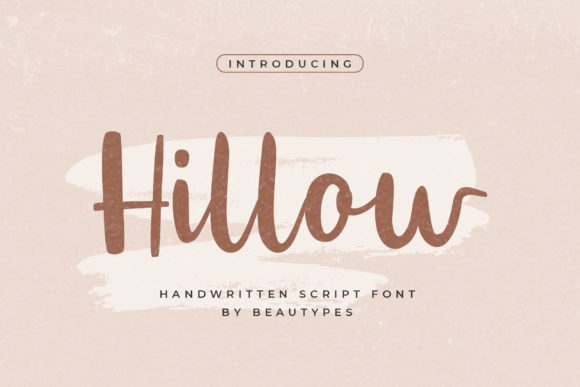
Hillow Script: A Guide to Elegant Typography
There are moments in a design project where a standard sans serif or a traditional serif font just won't cut it. You need something with personality, something that mimics the fluidity of the human hand but retains the precision of professional graphic design. This is where Hillow Script enters the conversation. It isn't just another script font; it is a carefully crafted typeface that balances delicate refinement with a stylish, modern flair. For designers, entrepreneurs, and content creators looking for a premium font that communicates sophistication, Hillow Script offers a versatile solution that bridges the gap between high-end aesthetics and practical application.
The Anatomy of Elegance: Visual Characteristics
When you first encounter Hillow Script, the immediate impression is one of fluidity and grace. The letterforms are constructed with varying stroke widths, mimicking the pressure changes of a pointed pen or a soft brush. This is the hallmark of a high-quality script font; it doesn't look stiff or mechanical. Instead, it flows with a rhythm that guides the eye naturally across the page.
What sets Hillow Script apart from many competitors is its attention to detail in the connections between letters. The baseline is consistent, ensuring that the text remains grounded, while the ascenders and descenders—those tall strokes that go above the x-height and below the baseline—add a sense of verticality and elegance. However, the true magic lies in its stylish alternates and ligatures. These are specialized character combinations that replace standard letters to prevent awkward overlaps or spacing issues. For example, when you type two consecutive letters that might clash, a proper ligature connects them seamlessly, creating a word that looks genuinely handwritten rather than typed out.
Furthermore, the font’s personality is one of quiet confidence. It is delicate, yes, but it is not fragile. The letterforms have enough weight to be legible at various sizes, yet they remain airy enough to feel sophisticated. This makes Hillow Script an ideal choice for projects that need to convey luxury, intimacy, or creativity without sacrificing readability.
Strategic Applications: Where to Use Hillow Script
Understanding a font's aesthetic is one thing; knowing where to deploy it effectively is another. Hillow Script is a versatile display font, meaning it shines brightest when used for headlines, logos, and large text rather than long blocks of body copy. Its role is to capture attention and set a mood immediately.
Brand Identity and Logo Design
For businesses in the fashion, beauty, lifestyle, or luxury sectors, a logo design using Hillow Script can instantly establish a brand as high-end. Imagine a boutique bakery or a wedding planning service; the flowing nature of the script suggests care, tradition, and elegance. Because the font includes various swashes and alternates, designers can customize the logo to feel unique, ensuring that the brand doesn't look like it’s using a generic template. It helps build a brand identity that feels personal and bespoke.
Editorial and Publishing Design
In the world of editorial design, typography drives the hierarchy of information. Hillow Script works beautifully for pull quotes, chapter titles, or magazine headers. It provides a necessary visual break from rigid serif fonts or neutral sans serif fonts used for body text. By pairing Hillow Script with a clean geometric sans serif, you create a modern typography layout that feels both professional and approachable. This contrast is essential for keeping readers engaged and highlighting key messages.
Packaging and Product Design
Packaging design is another arena where Hillow Script excels. On a physical product, the texture of the typography matters. The delicate strokes of this font can convey the artisanal quality of a product, whether it’s a scented candle, a skincare line, or gourmet coffee. It adds a tactile quality to the visual design, suggesting that the product inside is crafted with the same attention to detail as the font itself.
Digital Presence and Social Media
While print is a strong suit, Hillow Script is also a powerful creative font for web design and social media graphics. On platforms like Instagram or Pinterest, where visuals are scrolled past quickly, a script font can stop the scroll. It adds a human touch to digital interfaces that can often feel cold. However, it is crucial to use it sparingly online. A script font used for an entire Instagram caption can be illegible on small mobile screens. Instead, use it for overlay text on images, story headers, or website hero sections where the text is large and impactful.
The Mechanics of Professional Typography
One of the most significant technical advantages of Hillow Script is that it is PUA encoded (Private Use Areas). For the non-designer, this might sound like jargon, but it is a critical feature for usability. PUA encoding means that all the special characters, swashes, and alternates are accessible even in basic software that doesn't usually support OpenType features. You don't need to be an expert in Adobe Illustrator to access the fancy swashes; you can often use a character map to copy and paste them directly into your design software. This democratizes high-end design, allowing entrepreneurs and hobbyists to access professional-grade design assets without a steep learning curve.